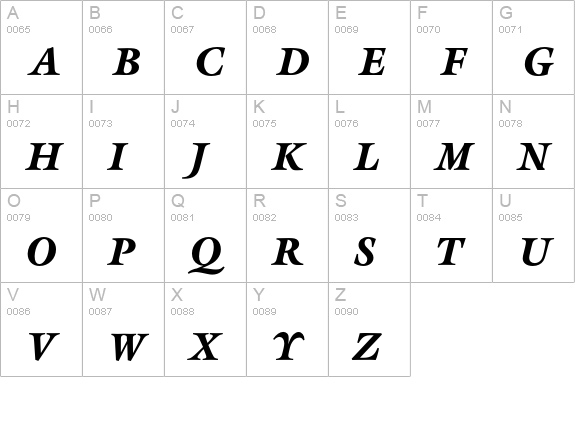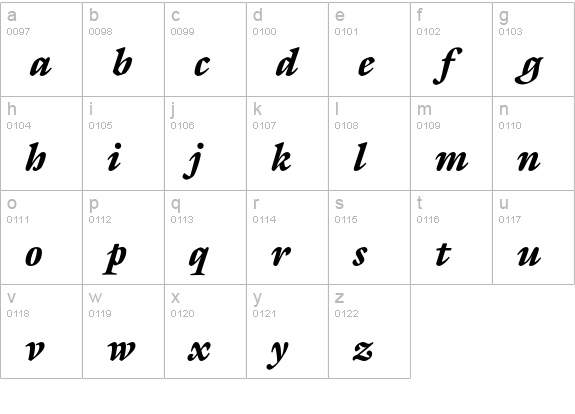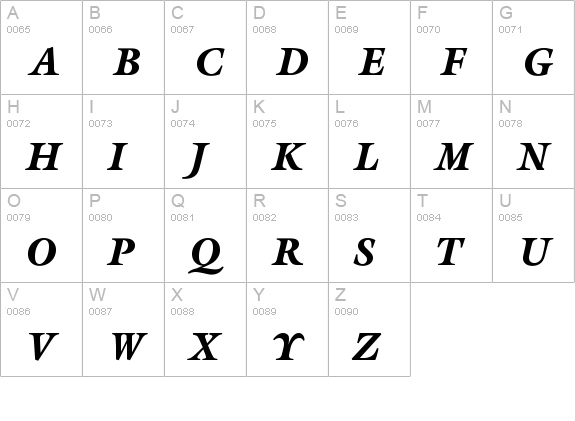
GalliardEF-BlackItalic is a stunning font that effortlessly combines elegance with a touch of modernity. With its sleek and stylish design, this font is sure to make a bold statement in any project. The italicized form of the font adds an extra level of sophistication, making it perfect for luxurious branding, editorial design, and high-end fashion projects. One of the best features of GalliardEF-BlackItalic is that it is completely free to download. This means that you can access this incredible font without having to spend a dime. Whether you are a professional designer or just starting out, having access to high-quality fonts for free is invaluable. To get your hands on GalliardEF-BlackItalic, simply head over to FontsMarket.com. There, you will find a wide range of free fonts, including this particular gem. The website offers a user-friendly interface, making it easy to browse and download the font of your choice. Don't miss out on this opportunity to elevate your designs with the captivating beauty of GalliardEF-BlackItalic. Download it for free today at FontsMarket.com and watch as your projects come to life with a touch of elegance and sophistication.